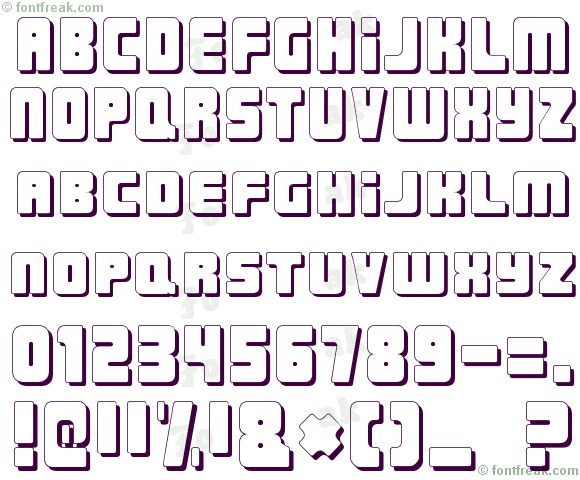
Urban Constructed Shadow
Urban Constructed
Urban Constructed Outline
Urban Constructed Cutter
Urban Constructed is a striking display font designed by Nils Von Blanc, characterized by its bold, geometric shapes and urban aesthetic. This sans-serif typeface features a unique combination of thick and thin strokes, creating a dynamic contrast that draws attention. The letters have a slightly condensed appearance, which allows for efficient use of space while maintaining readability. The overall design is modern and edgy, making it perfect for projects that require a contemporary flair.